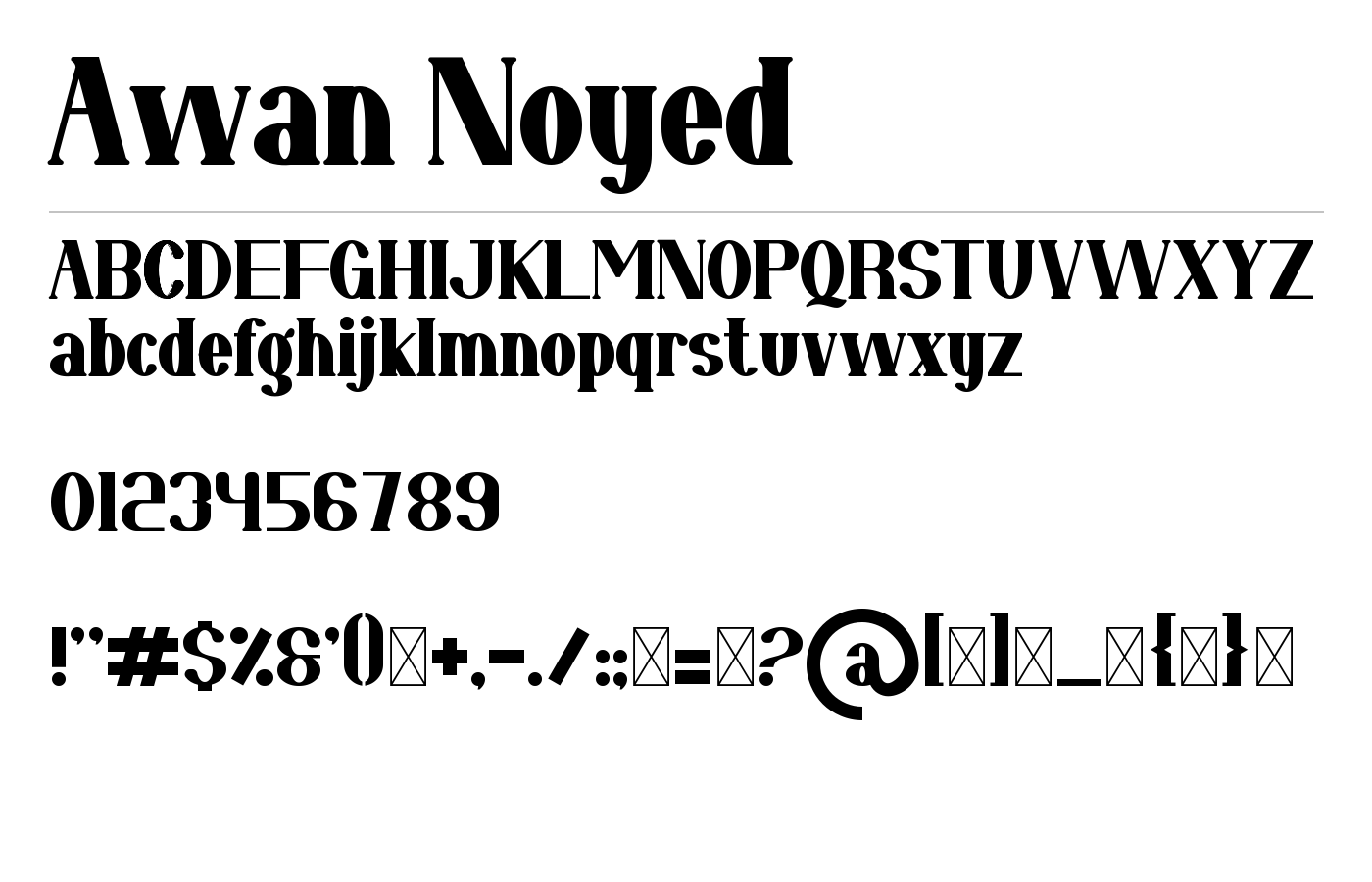
Awan Noyed is a bold serif font with a strong contrast between thick and thin strokes, featuring bracketed serifs and distinctive, slightly condensed letterforms. Its elegant yet robust style combines classic serif elements with modern flair, making it ideal for eye-catching headlines, editorial designs, and sophisticated branding projects. This font works particularly well where a blend of tradition and bold personality is desired.
Awan Noyed Font